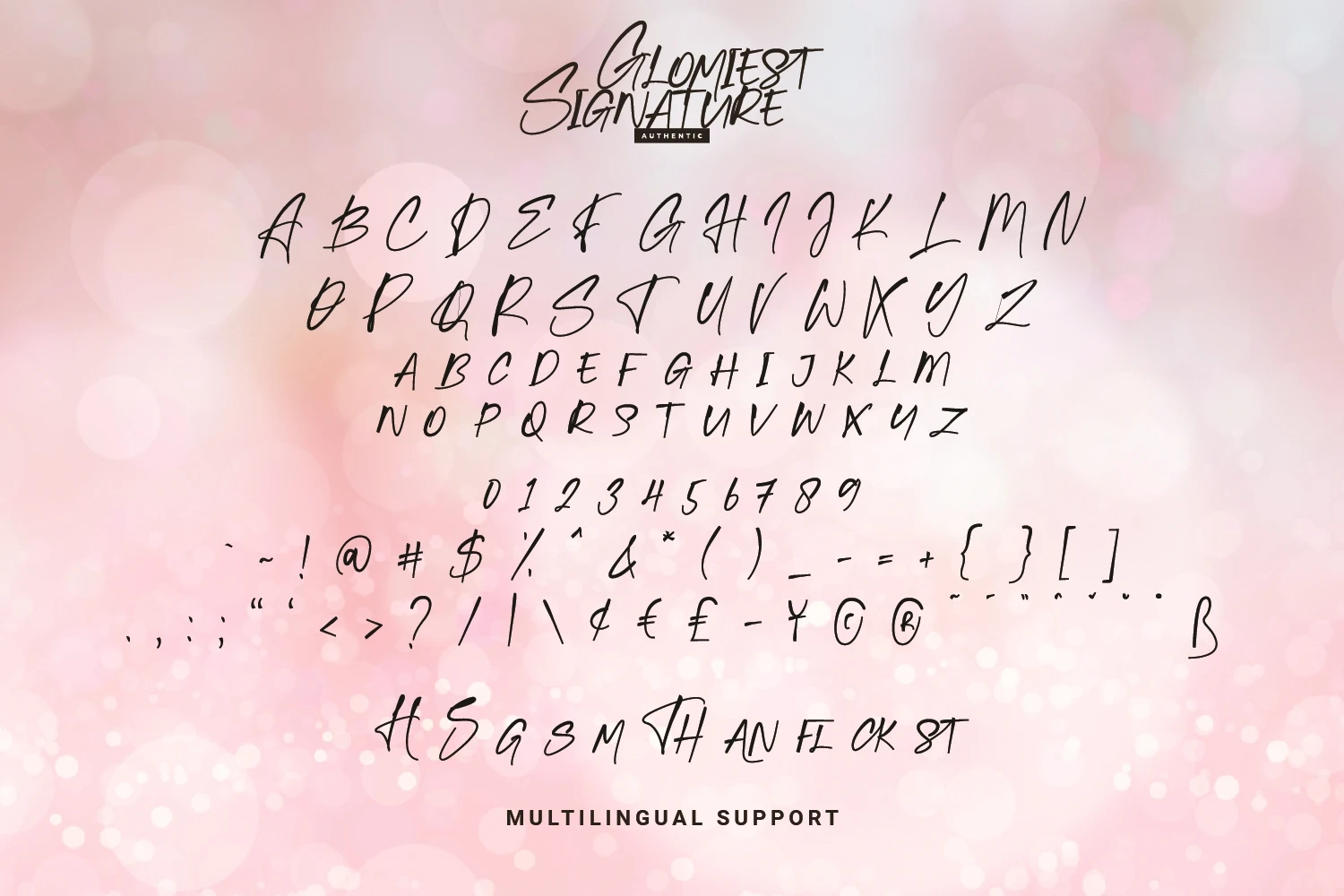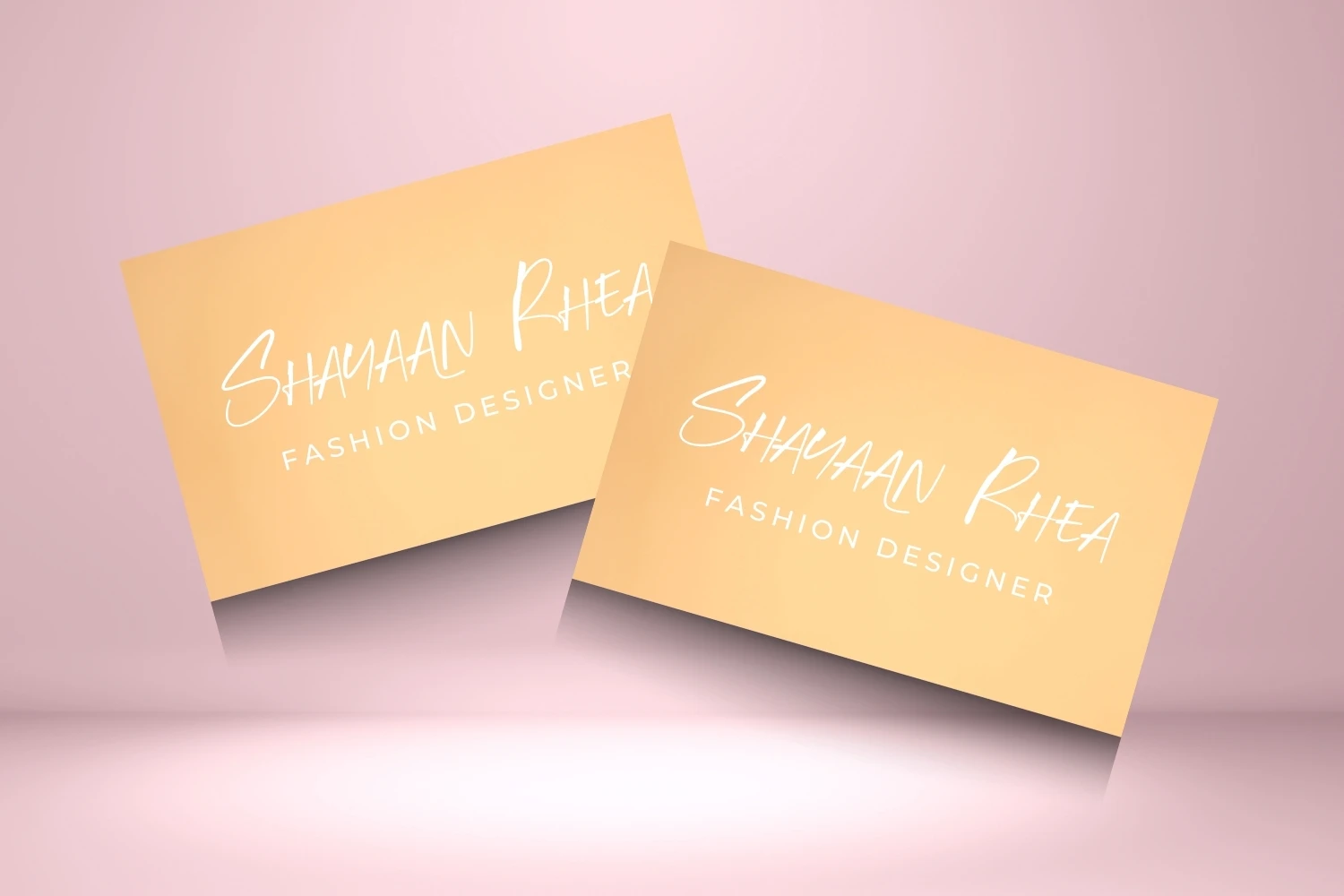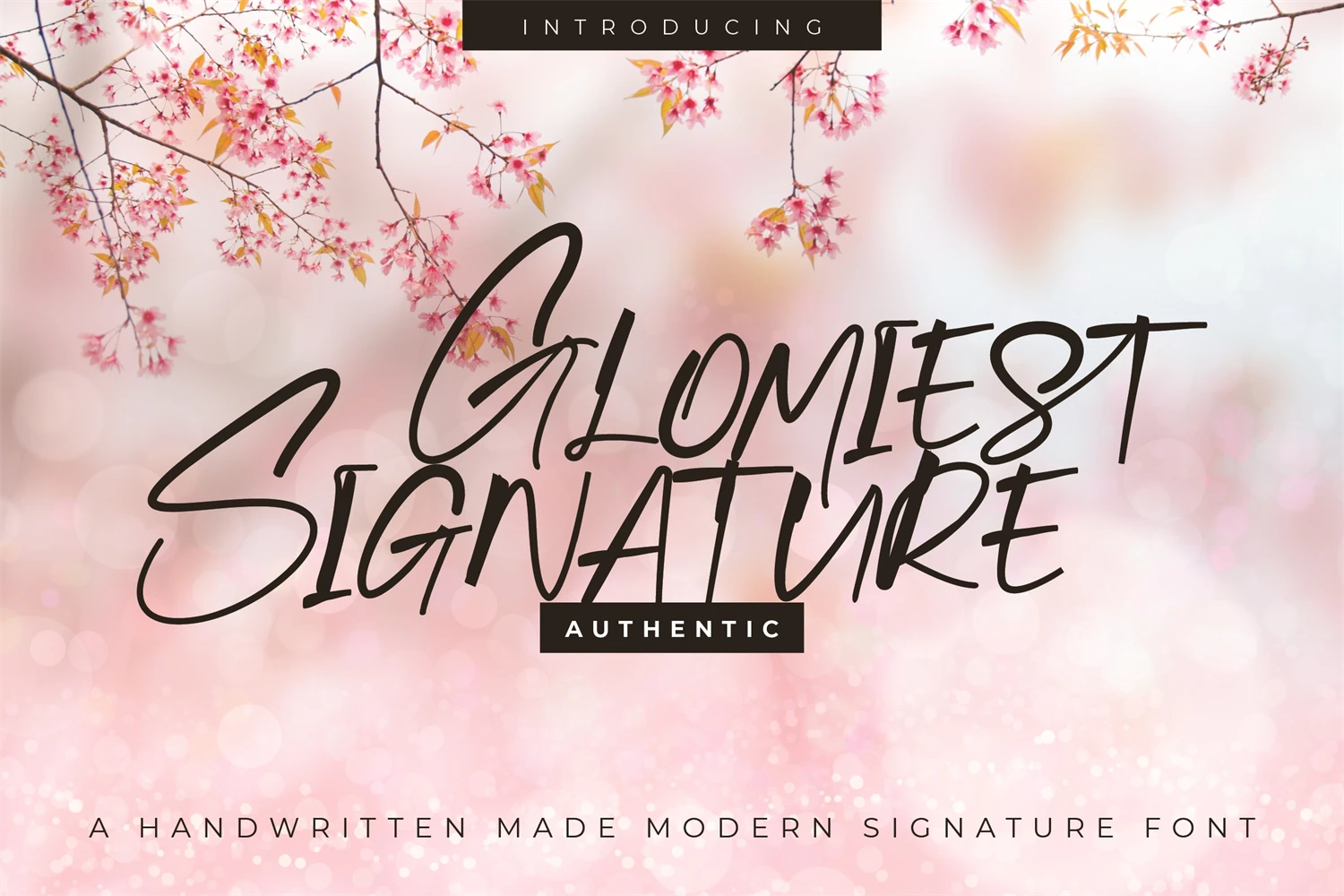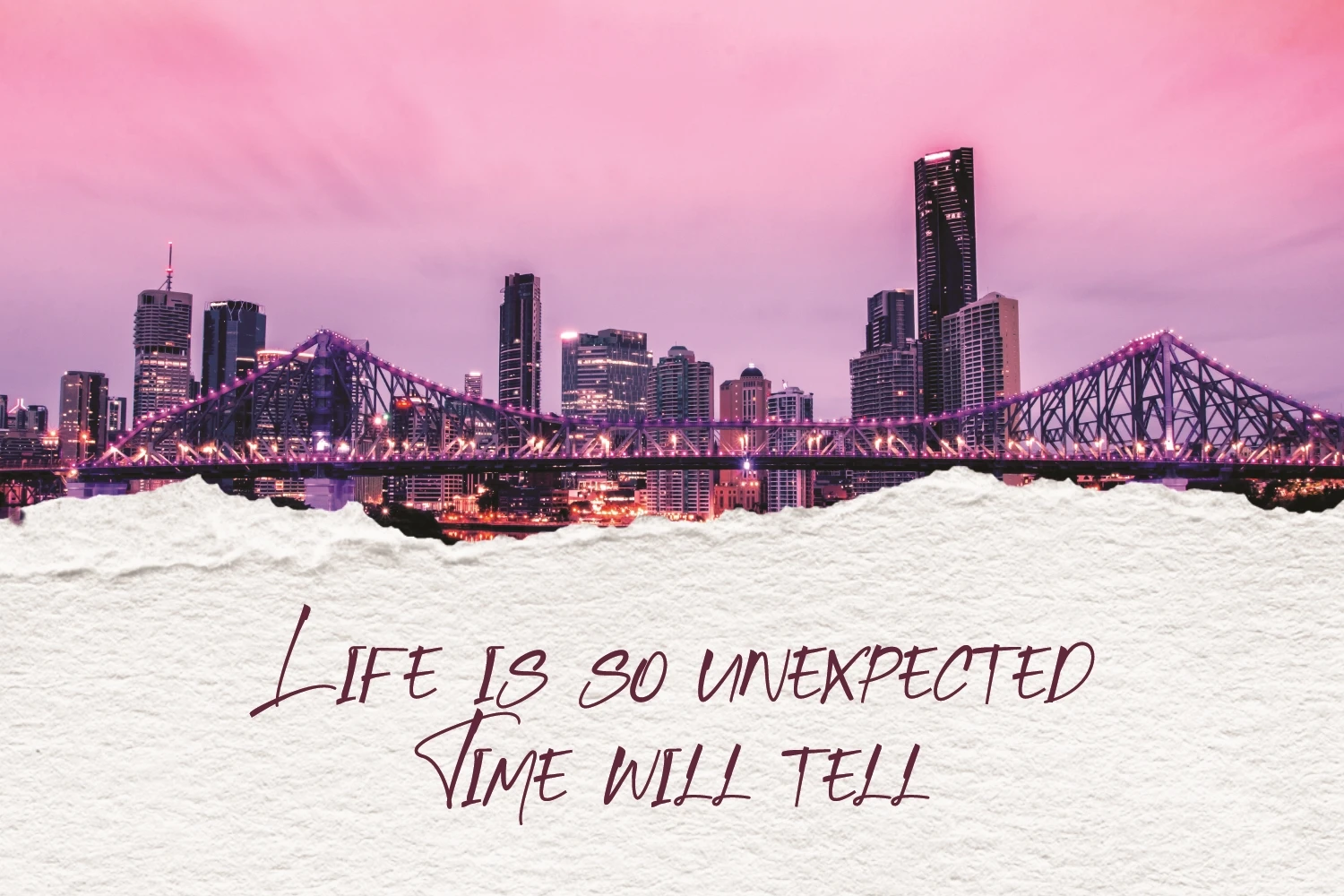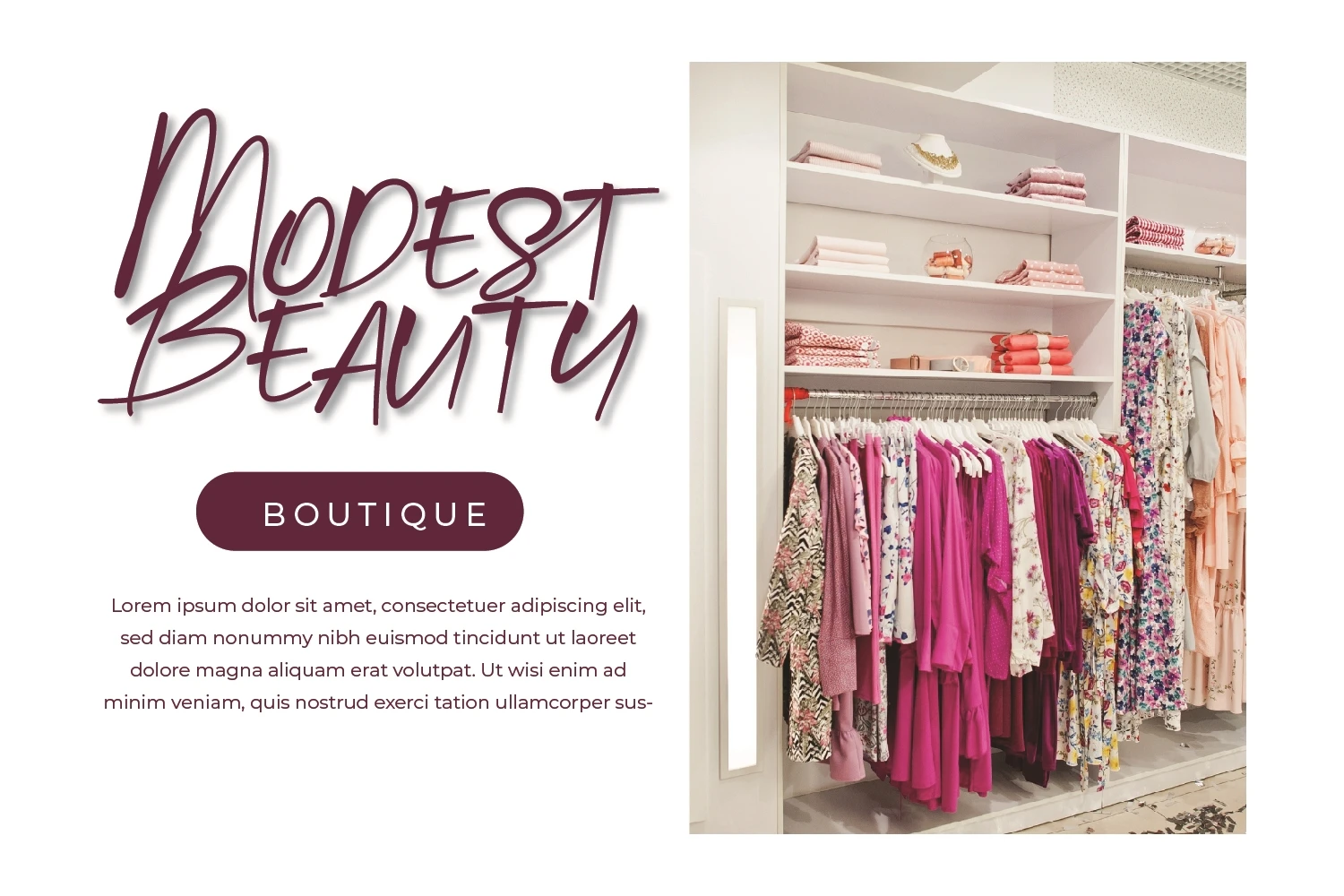
**Glomiest - Hanwritten Signature Font** with a calligraphy style, So beautiful on invitation like greeting cards, branding materials, business cards, quotes, posters, and more!
The alternative characters were divided into several Open Type features such as Stylistic Sets, Stylistic Alternates, Contextual Alternate, SWASH and Ligature. The Open Type features can be accessed by using Open Type savvy programs such as Adobe Illustrator, Adobe InDesign, Adobe Photoshop Corel Draw X version, And Microsoft Word. And this Font has given PUA unicode (specially coded fonts). so that all the alternate characters can easily be accessed in full
* Tons of glyphs
* Alternates and Ligatures
* **PUA Encoded Characters** - Fully accessible without additional design software.
* Fonts include **Multilingual Support**